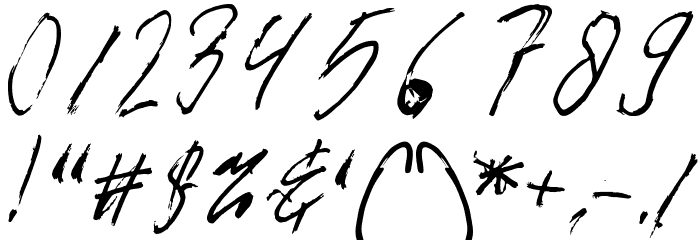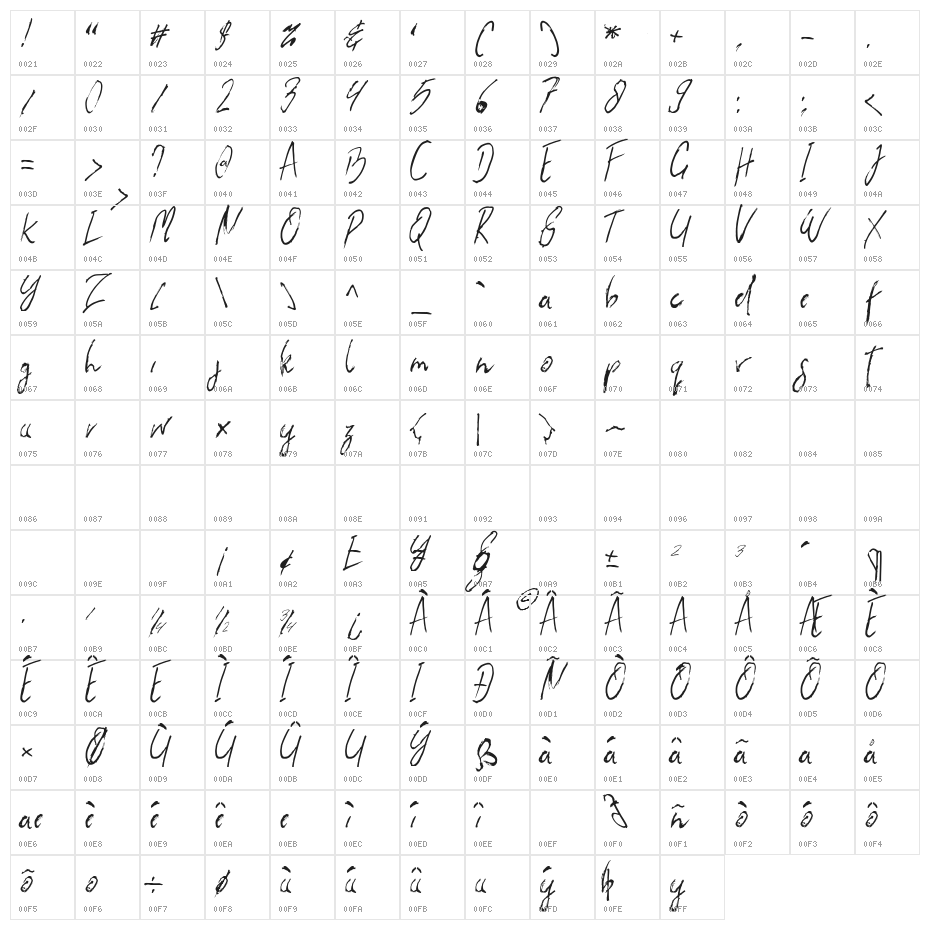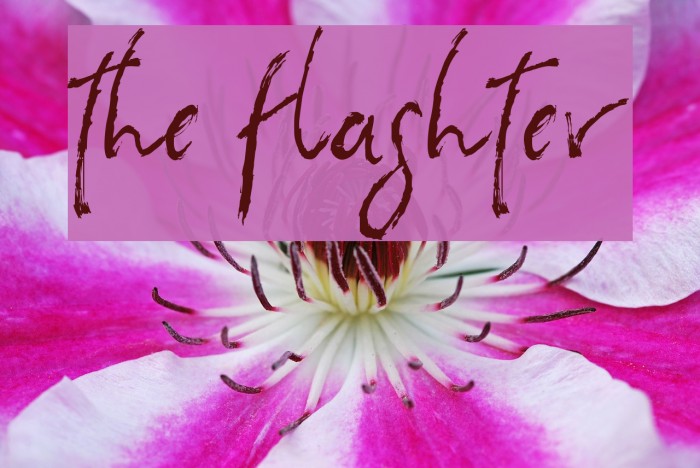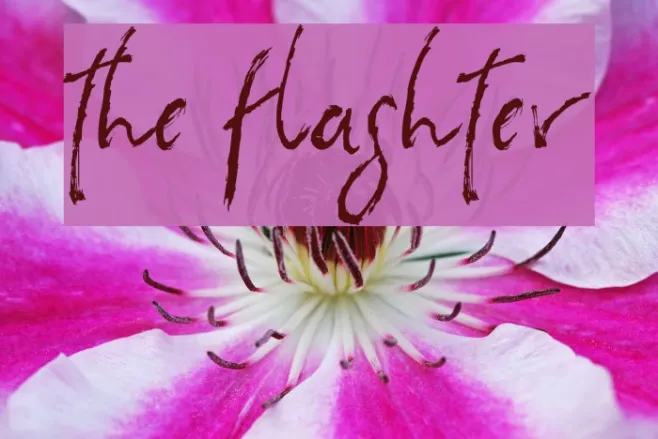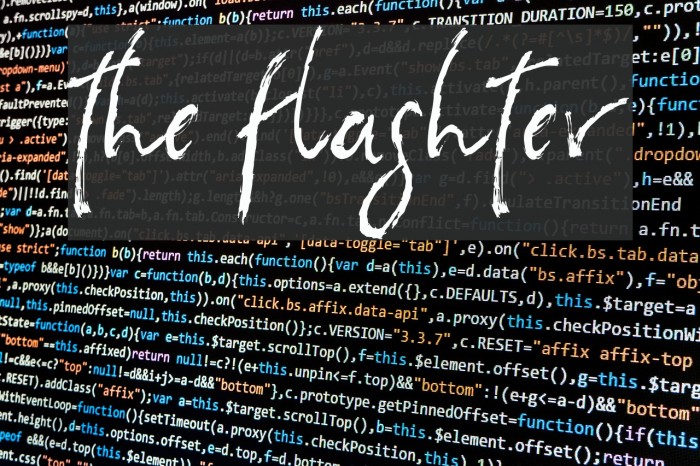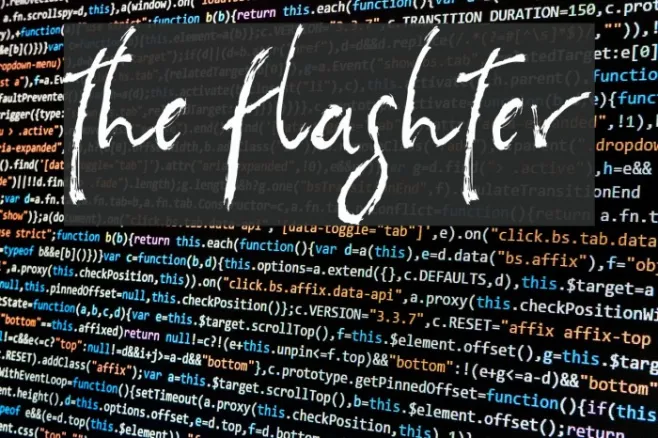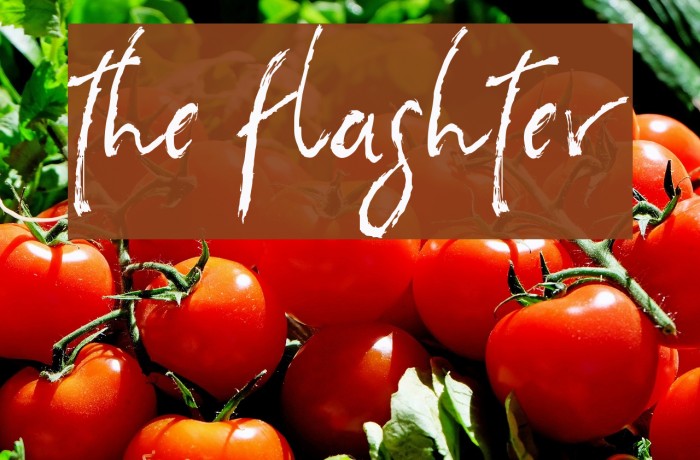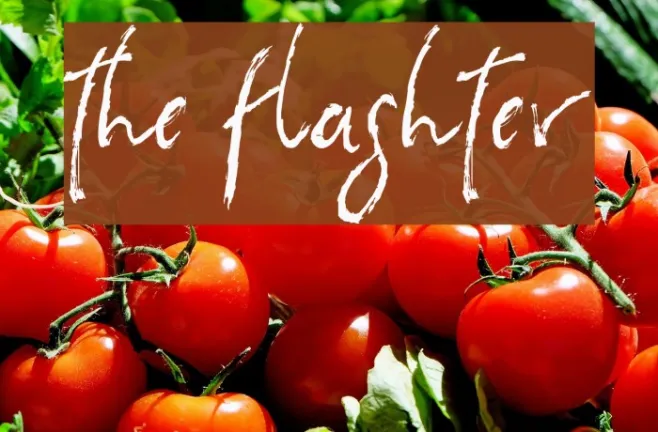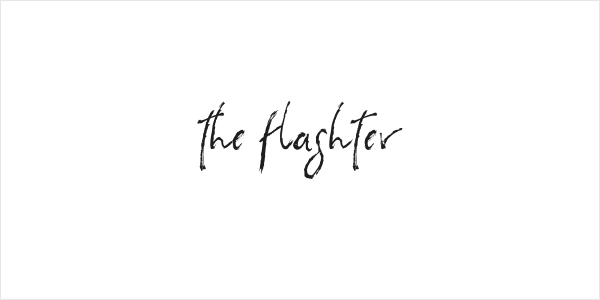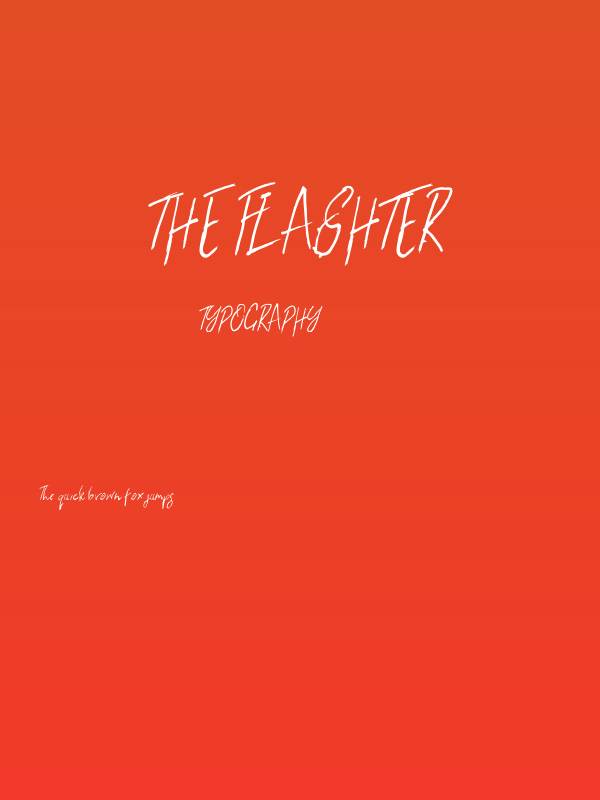
the flashter Font
the flashter Description
This expressive and dynamic font features a handwritten style with a brush-like texture, giving it a raw and energetic appearance. The letters are irregular and vary in thickness, creating a sense of movement and spontaneity. The uppercase and lowercase characters maintain a consistent flow, while the numbers and special characters complement the overall aesthetic. This font's unique style makes it stand out, offering a bold and artistic touch to any design.
| Proposed Projects | Ideal for artistic projects, branding, posters, and any design requiring a bold, expressive touch. |